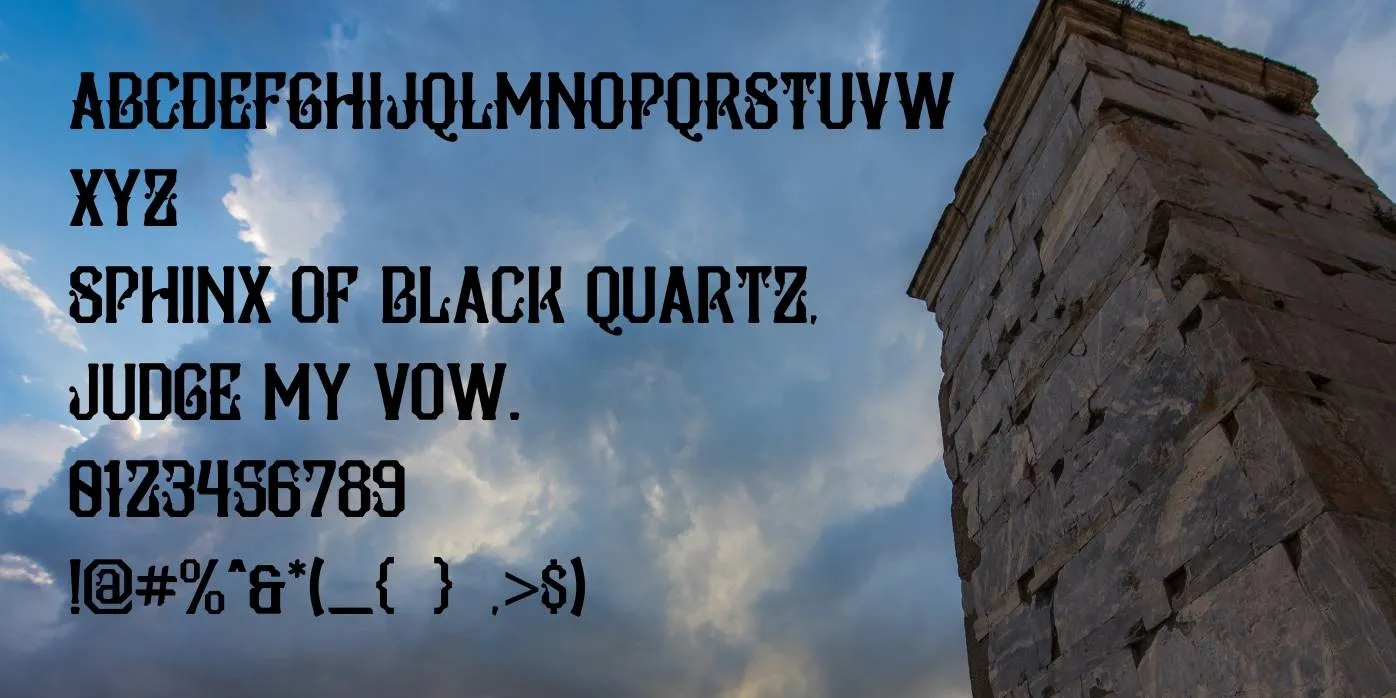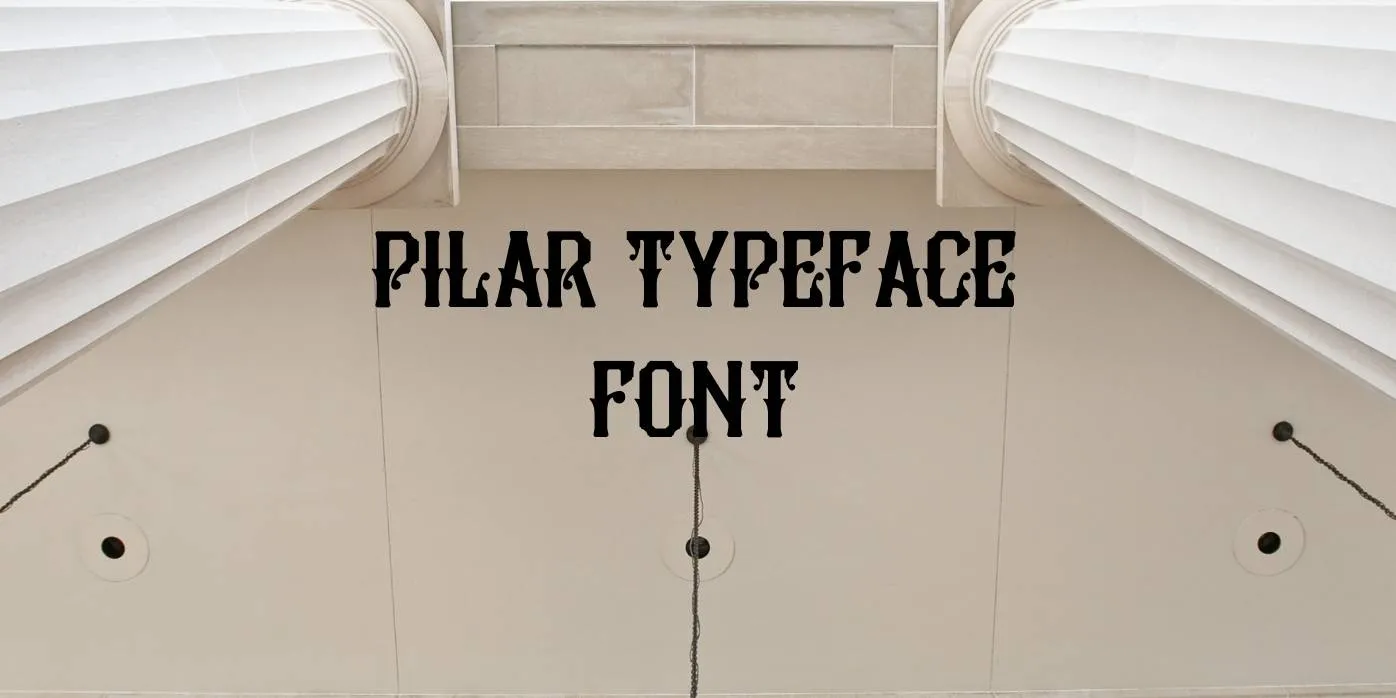
Pilar Typeface Font
Pilar Typeface Font is one of the best-condensed fonts that are very useful for Large types of designs. It belongs to a Fancy Typeface family of Fonts. The designer of this Extra Great font is Ilham Herry. You can consider its greatest style by examining its huge characters.
The typeface has the ability to support too many languages. It contains only in Bold style and characters with Uppercase and Lowercase Letters, Numbers, and some useful symbols also. It has TTF features and is available for personal use only. No matter what you want to make or what you want to draw this typeface gives an expensive look to your designs projects.
It is fulfilled with all the user’s needs. Its huge characters seem sizeable as its name.